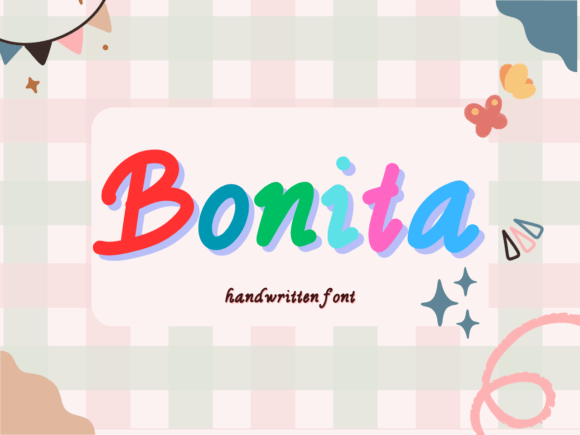
The Bonita Font: A Game-Changer for Creative Projects
I’ll never forget the time I was working on a wedding card design project, and my client asked me to create a custom lettering piece that would make their special day even more memorable. I scoured the internet for the perfect font, but nothing seemed quite right. That was until I stumbled upon the Bonita Font. With its unique design and artistic flair, it was love at first sight! In this article, I’ll share my experience with the Bonita Font, its features, and how to make the most of it in your creative projects.
A Personal Review of Bonita Font
- ✨ Unique and artistic character design that adds a touch of personality to any project
- ✅ Easy to read and understand, even in smaller font sizes
- 🎨 Versatile and can be used for a wide range of creative projects, from lettering to greeting cards
While the Bonita Font is an excellent choice for many projects, there are a few things to keep in mind:
- ⚠️ Some characters may not be suitable for body text, as they can be quite ornate
- 🤔 Limited availability of stylistic alternates, which may limit its use in certain design contexts
The Story Behind Bonita Font
The Bonita Font was designed with the intention of creating a unique and artistic font that would stand out in any design project. The designer, inspired by traditional lettering techniques and modern digital art, crafted a font that would be both elegant and playful. With its strange and artistic characters, the Bonita Font is sure to add a touch of personality to any creative project.
Q: What type of projects is the Bonita Font best suited for?
A: The Bonita Font is versatile and can be used for a wide range of creative projects, including lettering, greeting cards, wedding cards, and more.
Q: Is the Bonita Font easy to read?
A: Yes, the Bonita Font is designed to be easy to read and understand, even in smaller font sizes.